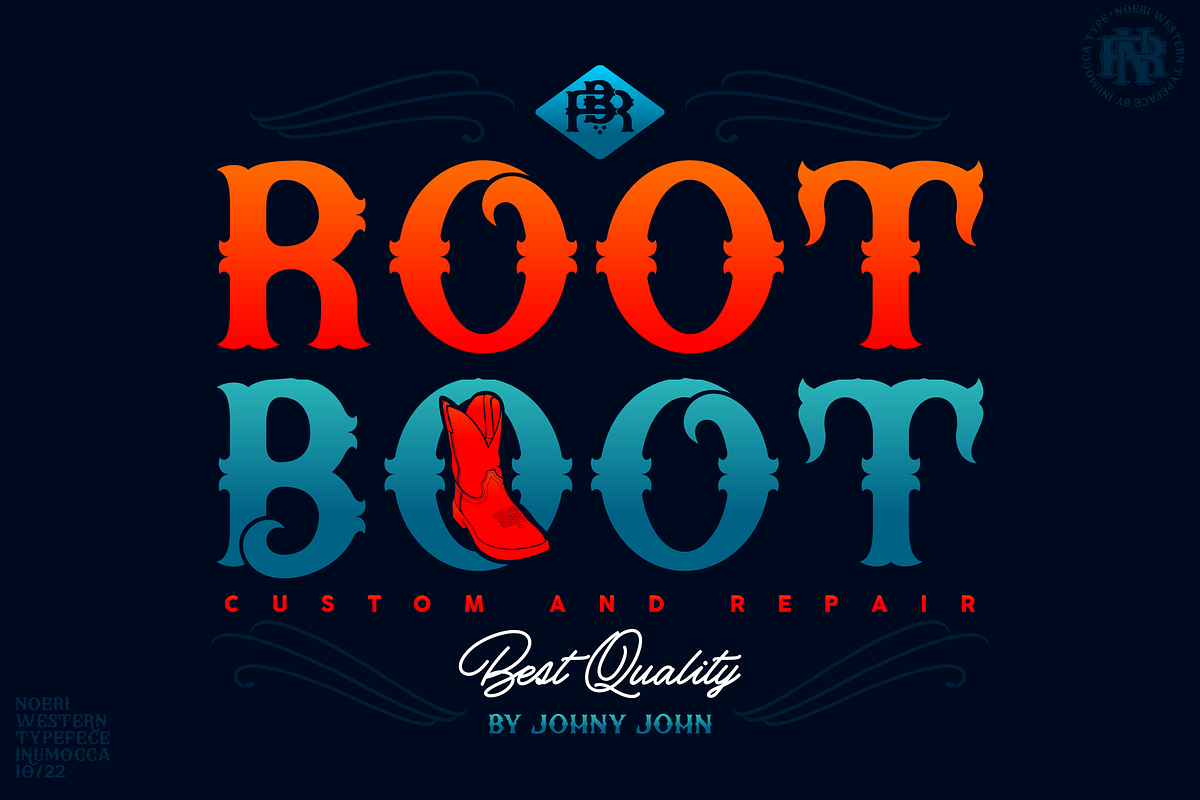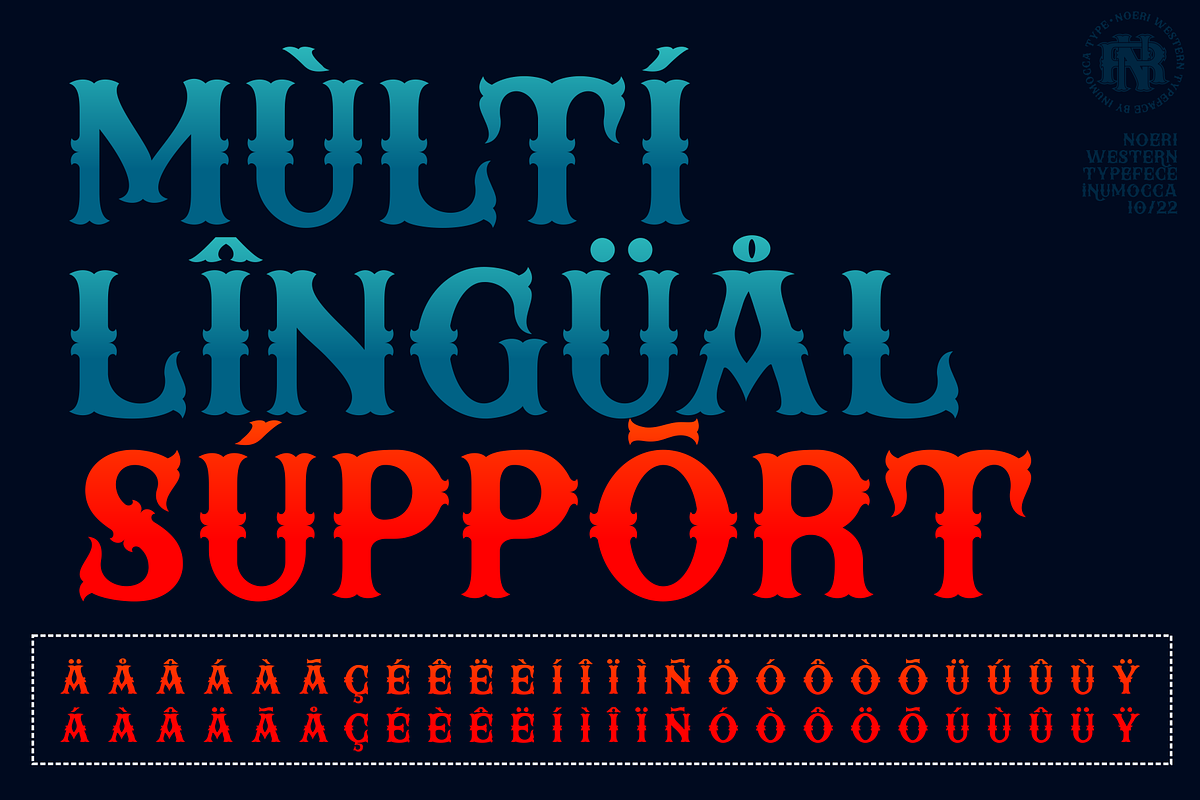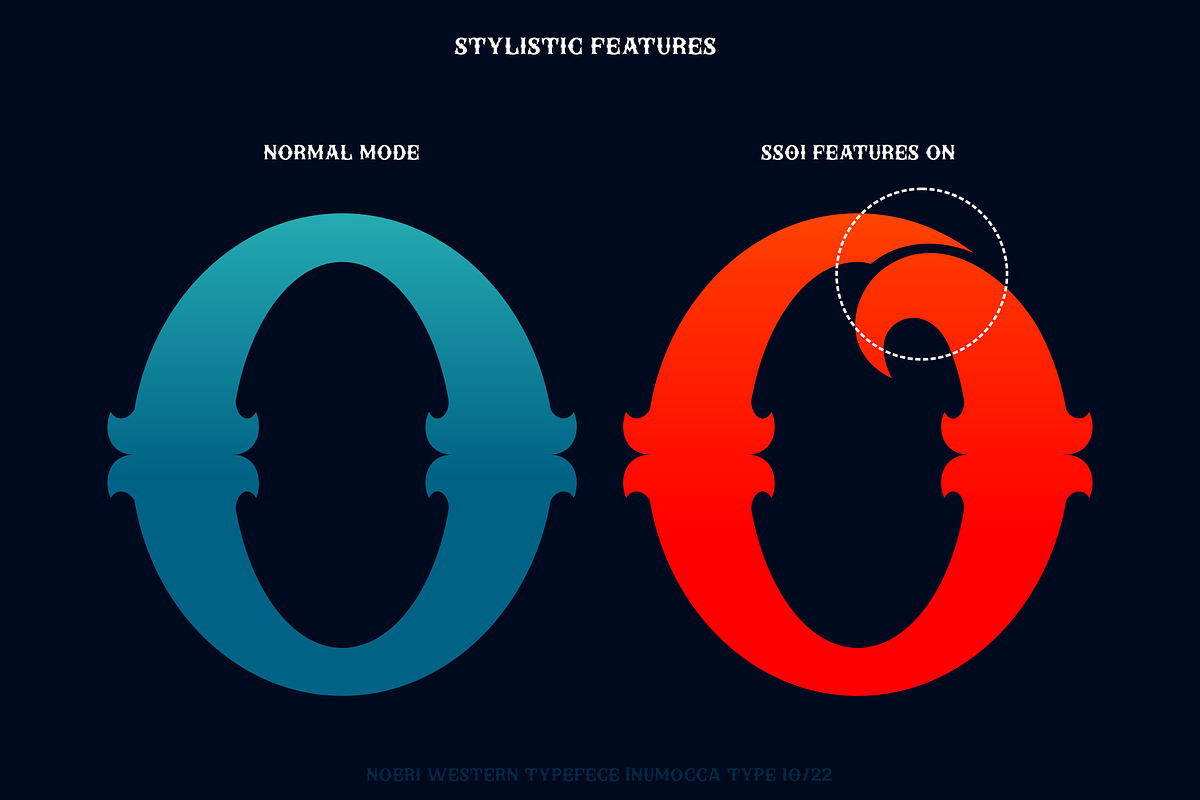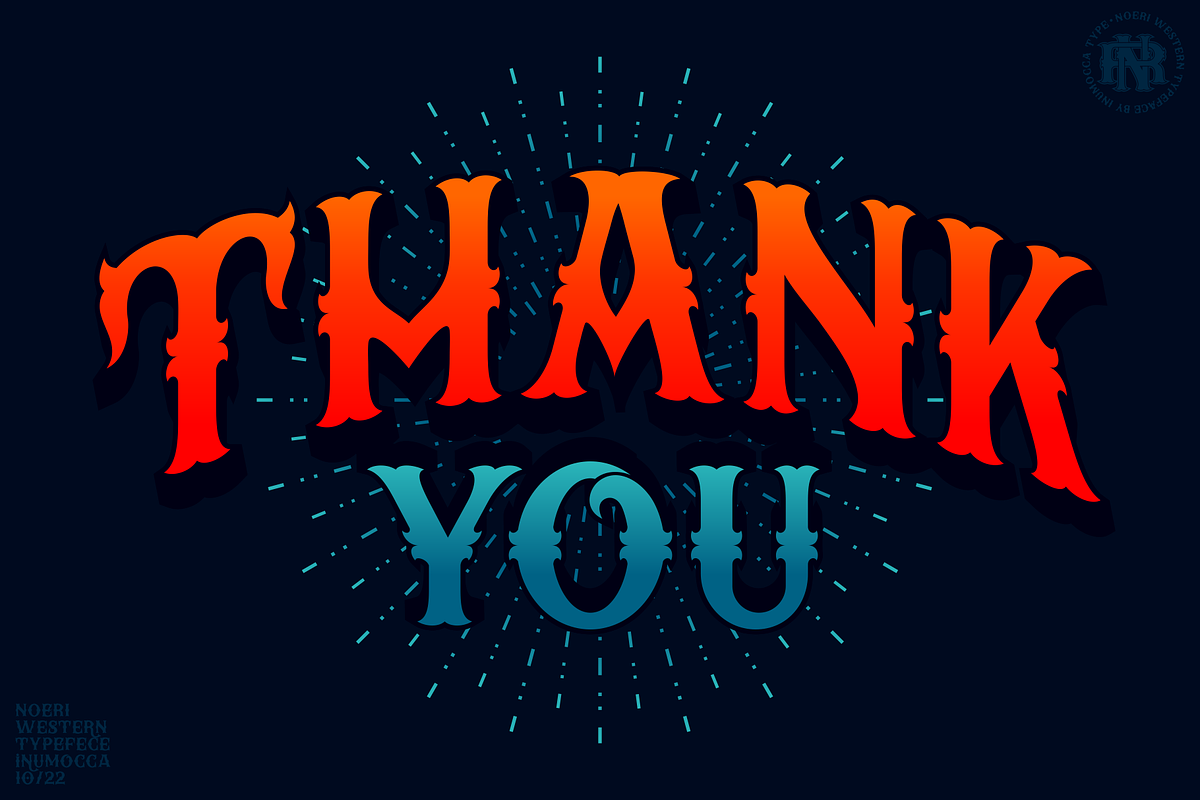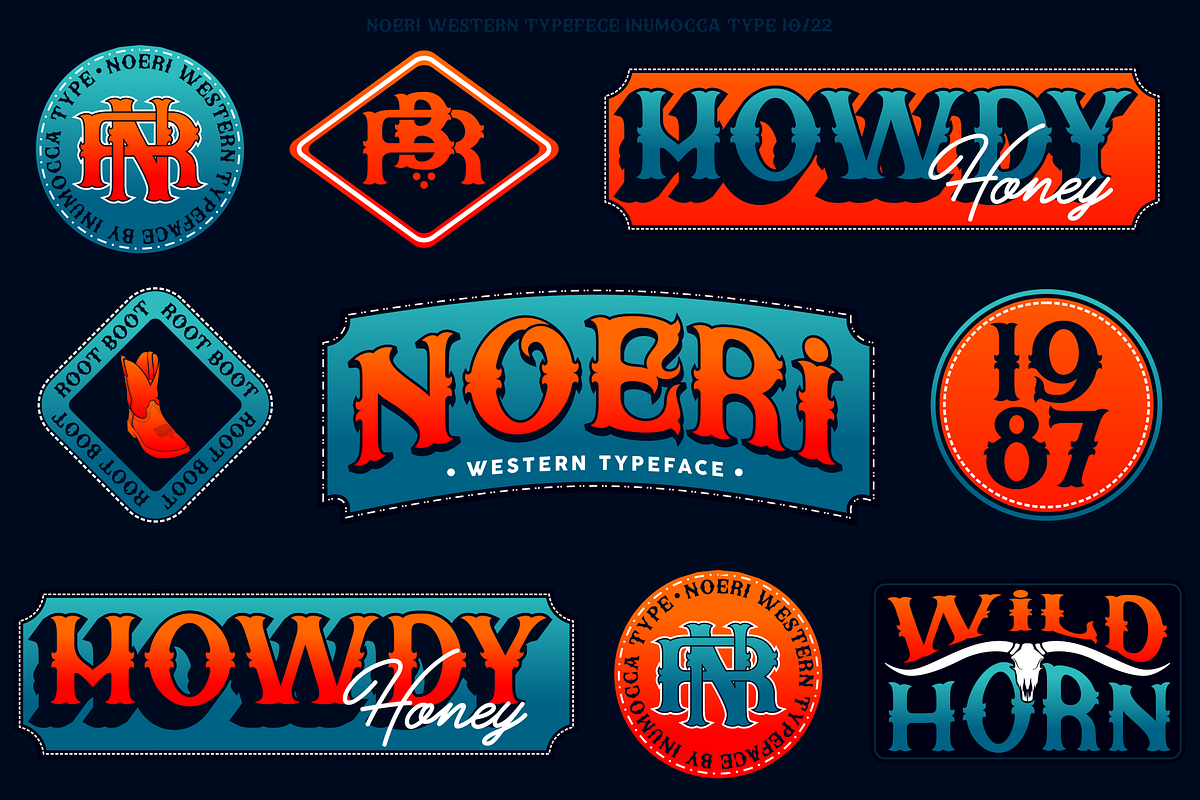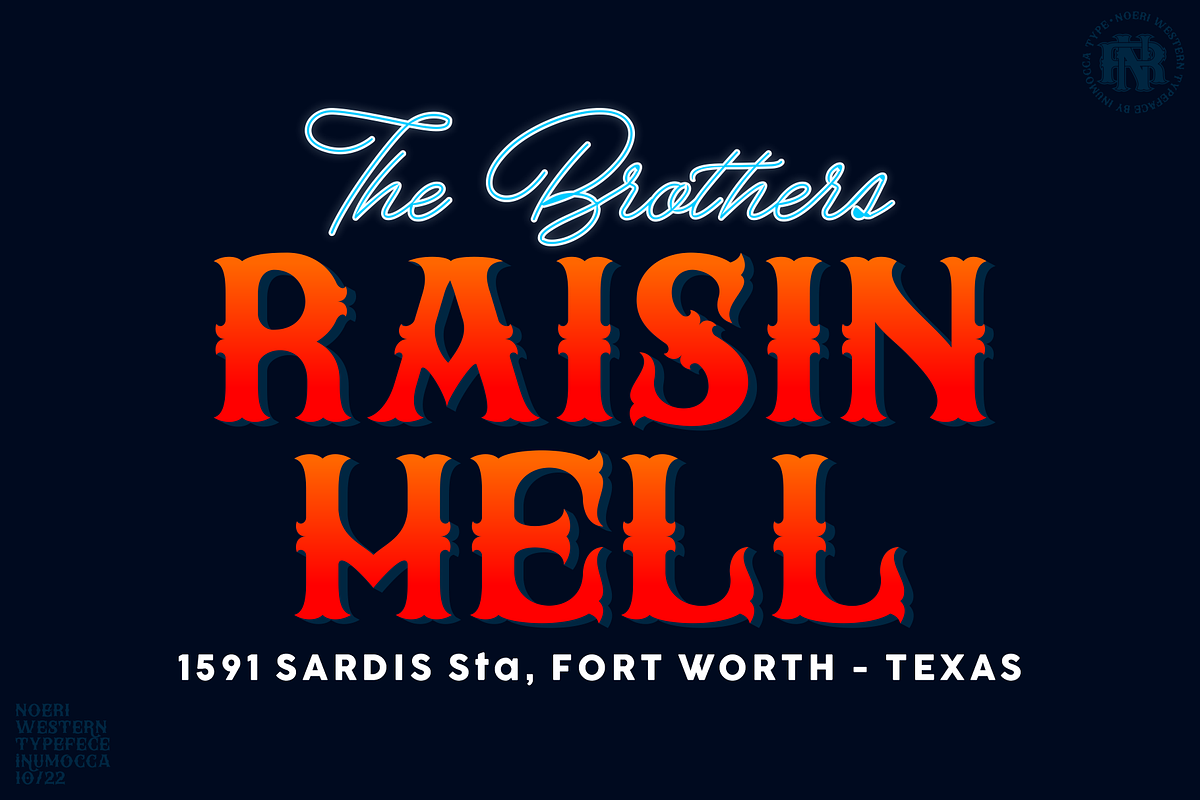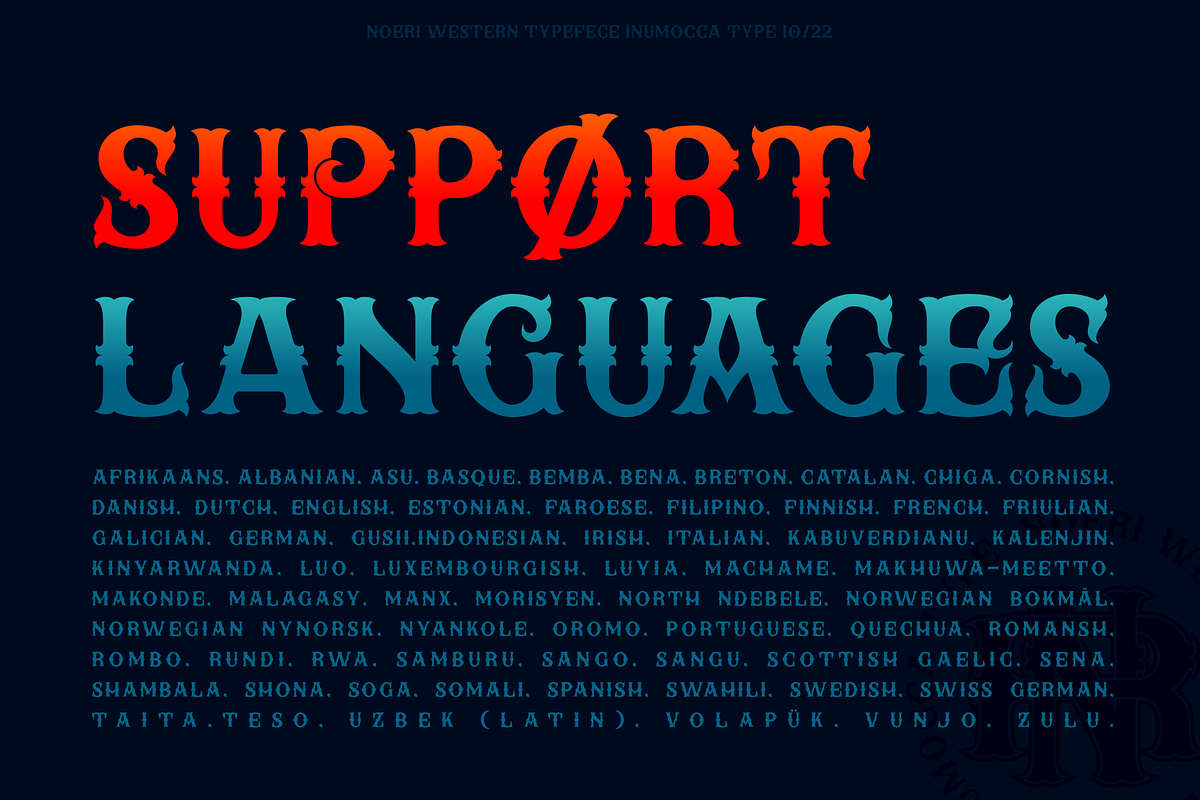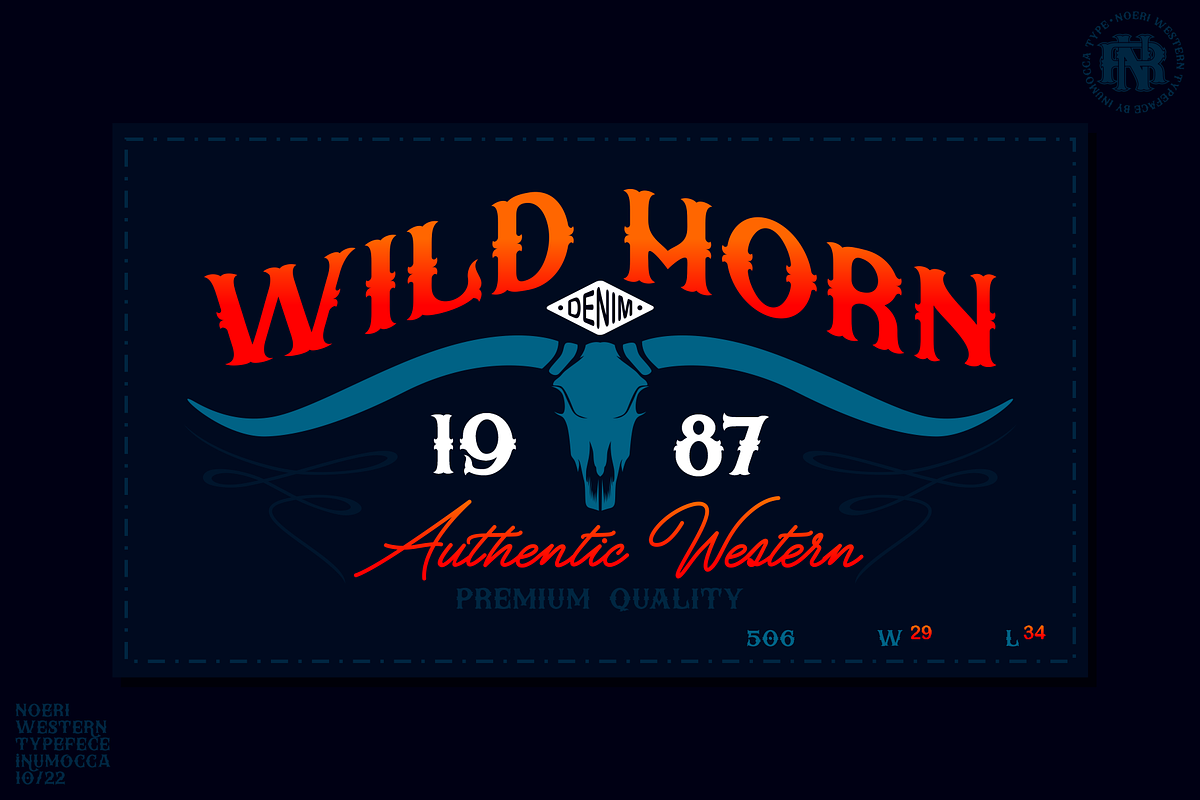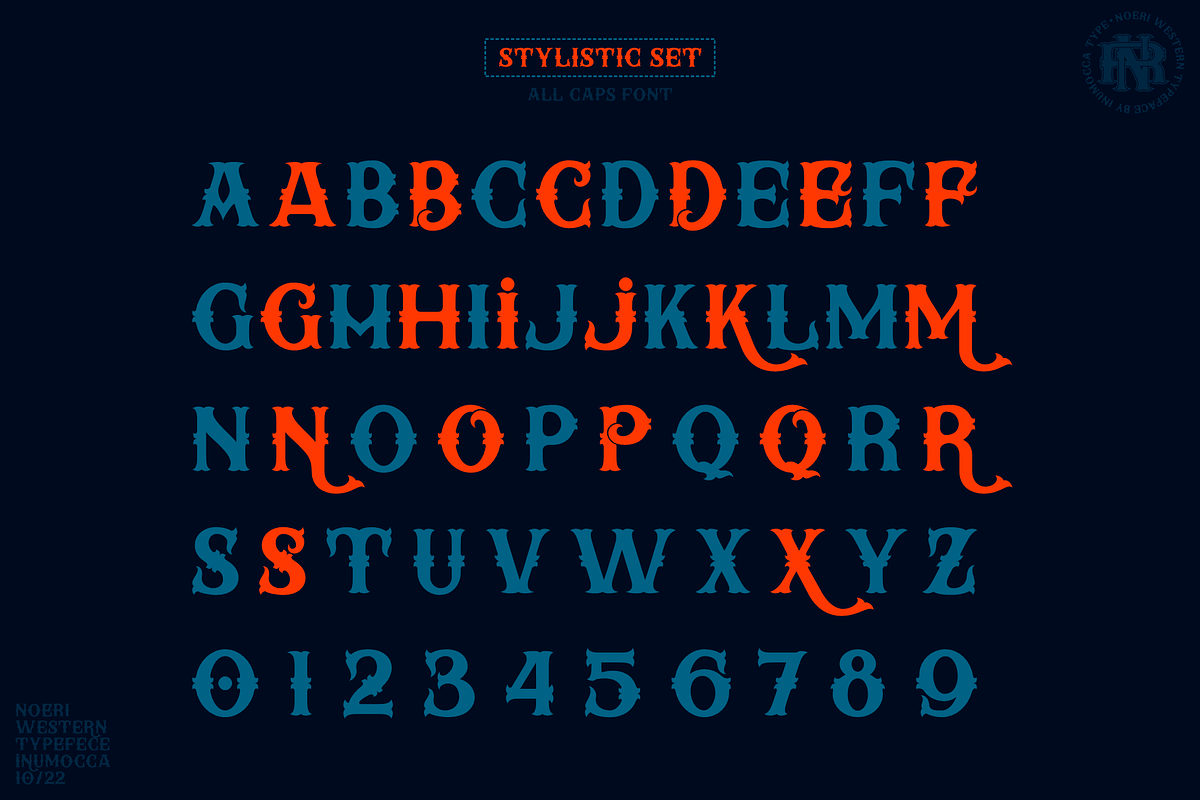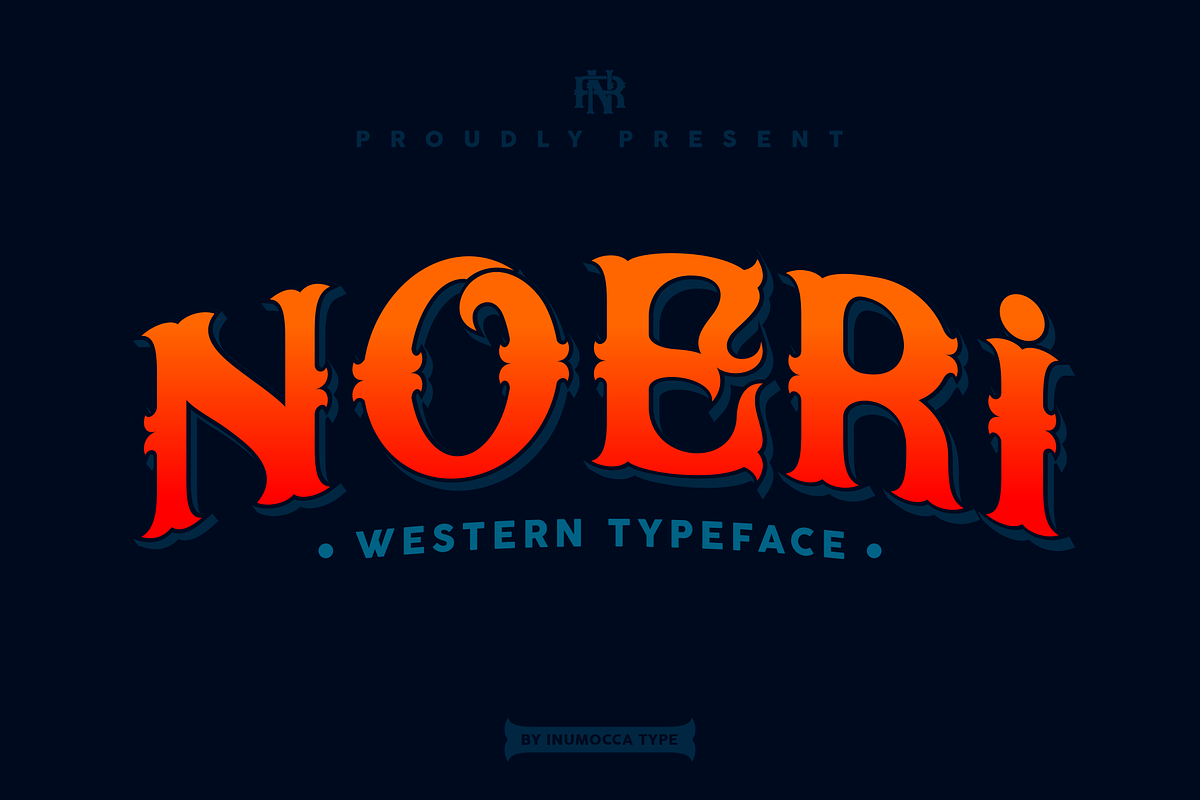
Noeri
Noeri is Western typeface. inspiration come from cowboy era and I want to Presenting the letterform style of that era. The Typeface comes with Stylistic Set and Ligature Combinations Exellent typeface to use for covering your Project, like Branding, Movie Title, Headline Letter, Bookcover or Book Content, Magazine cover, Poster, Quotes Lettering, Logos, and more your project design.
- Unique glyphs
- Multilingual Characters Support
- UPPERCASE
- Numeric
- Symbol
- Punctuation Character
- Stylistic Set